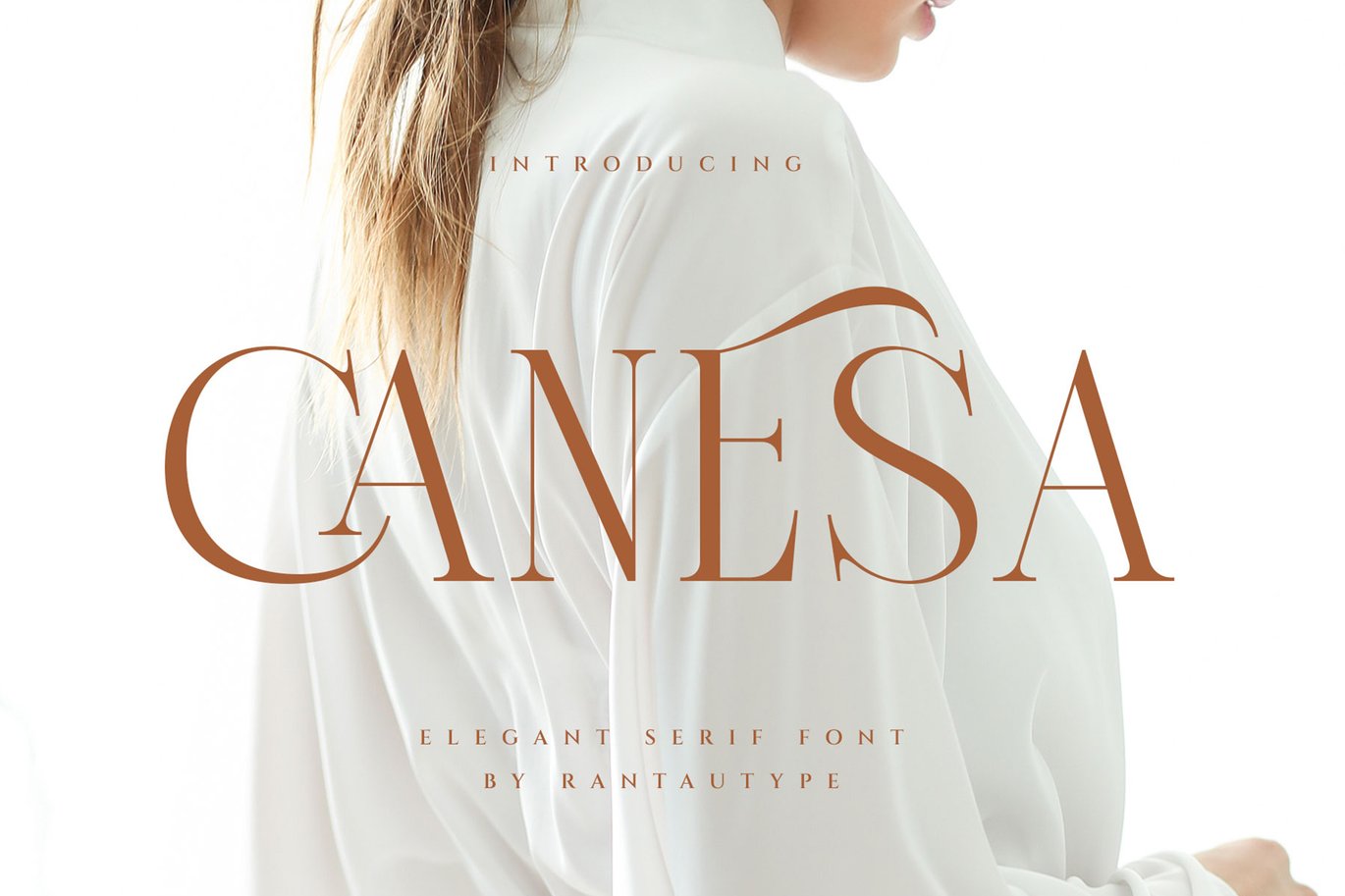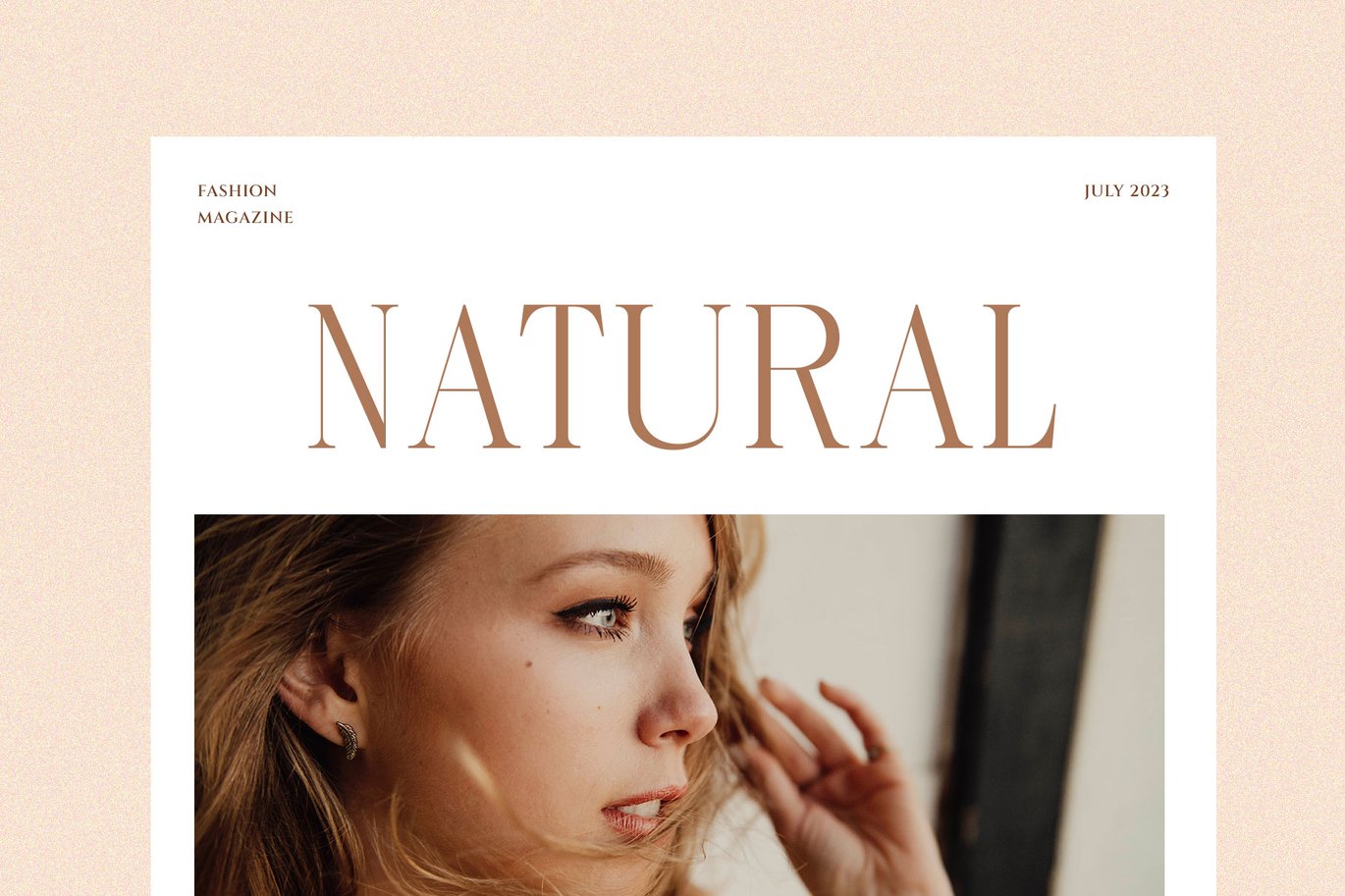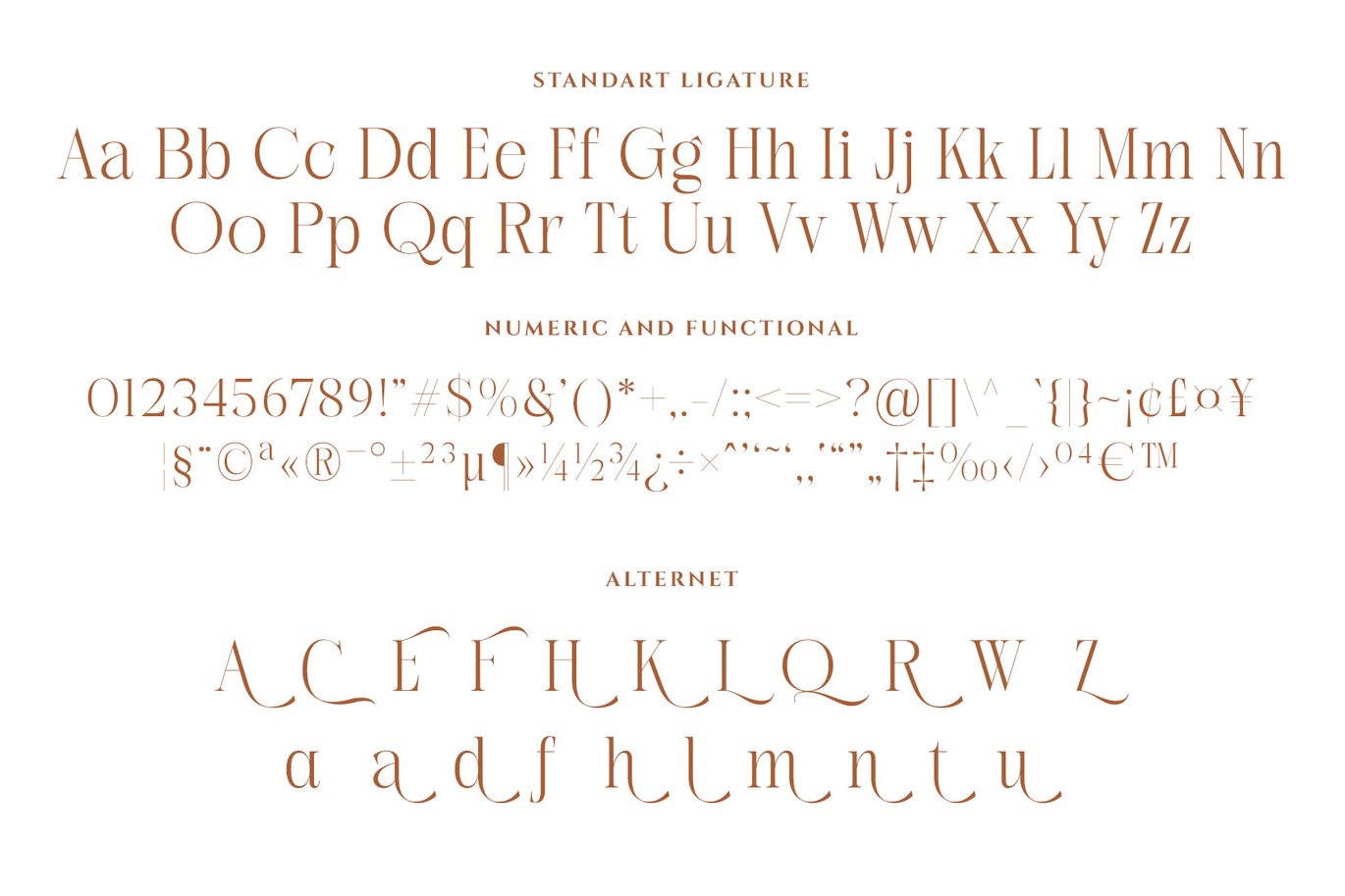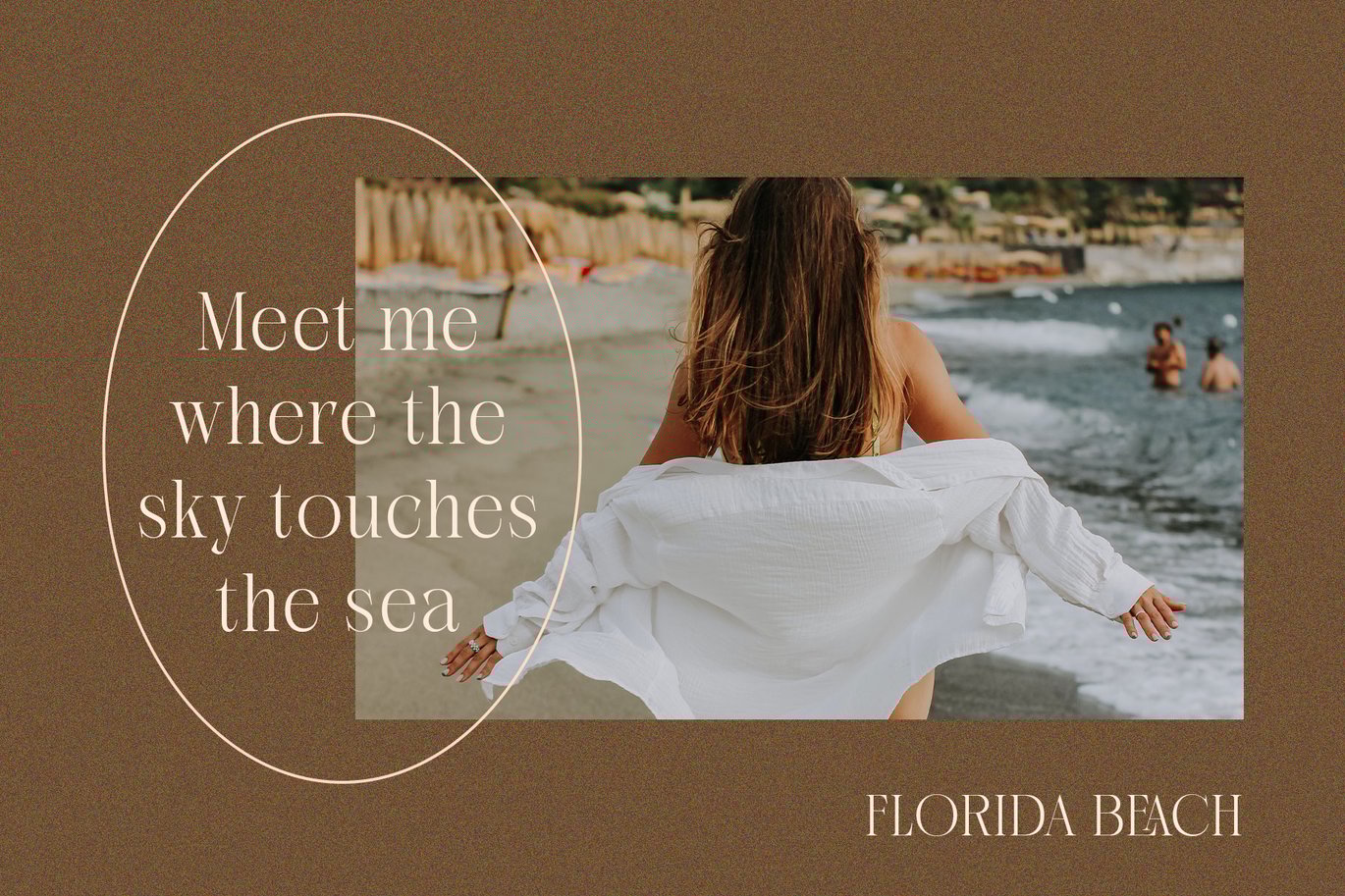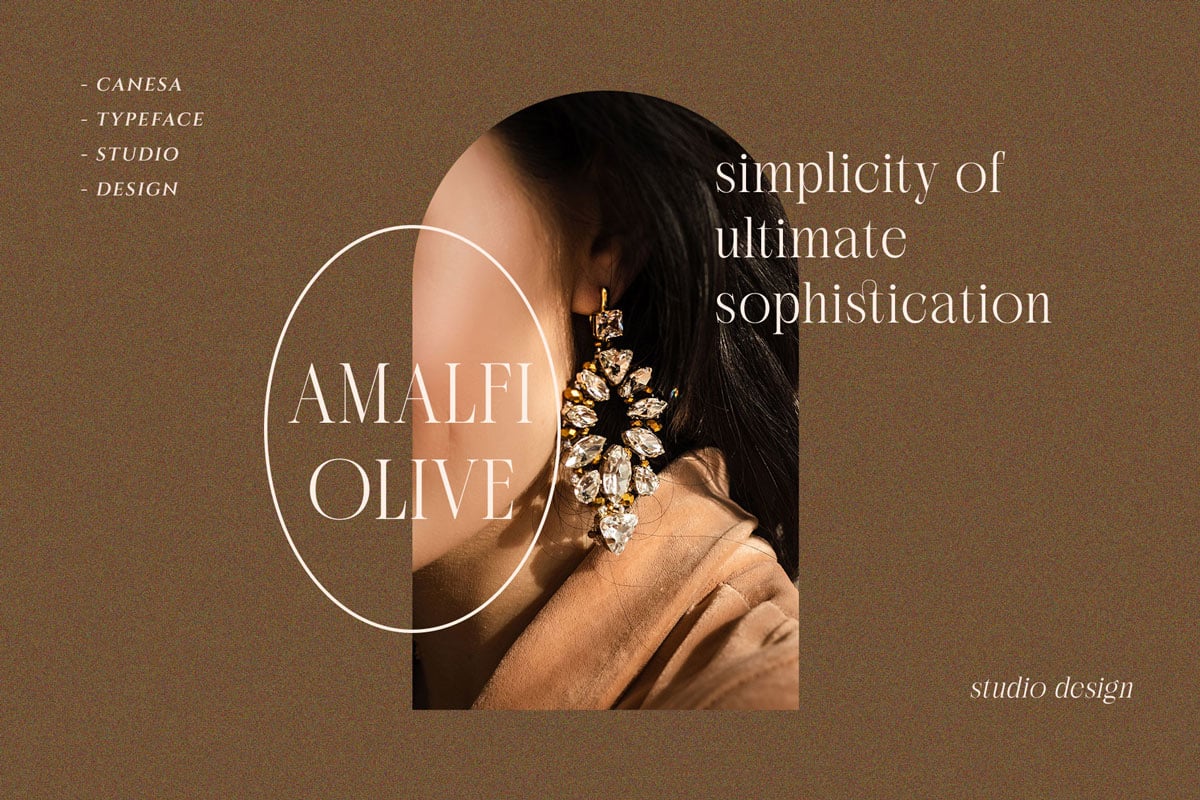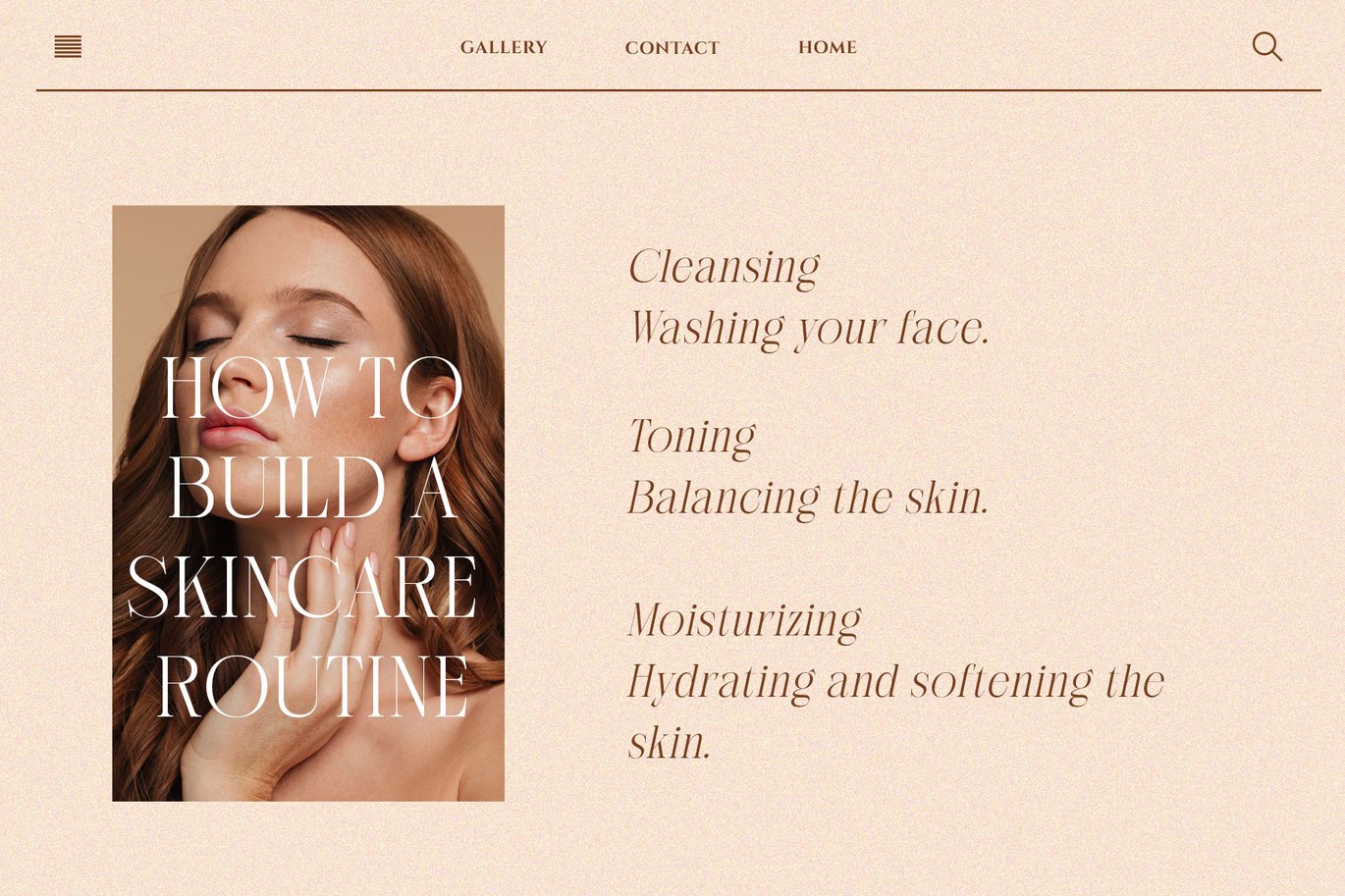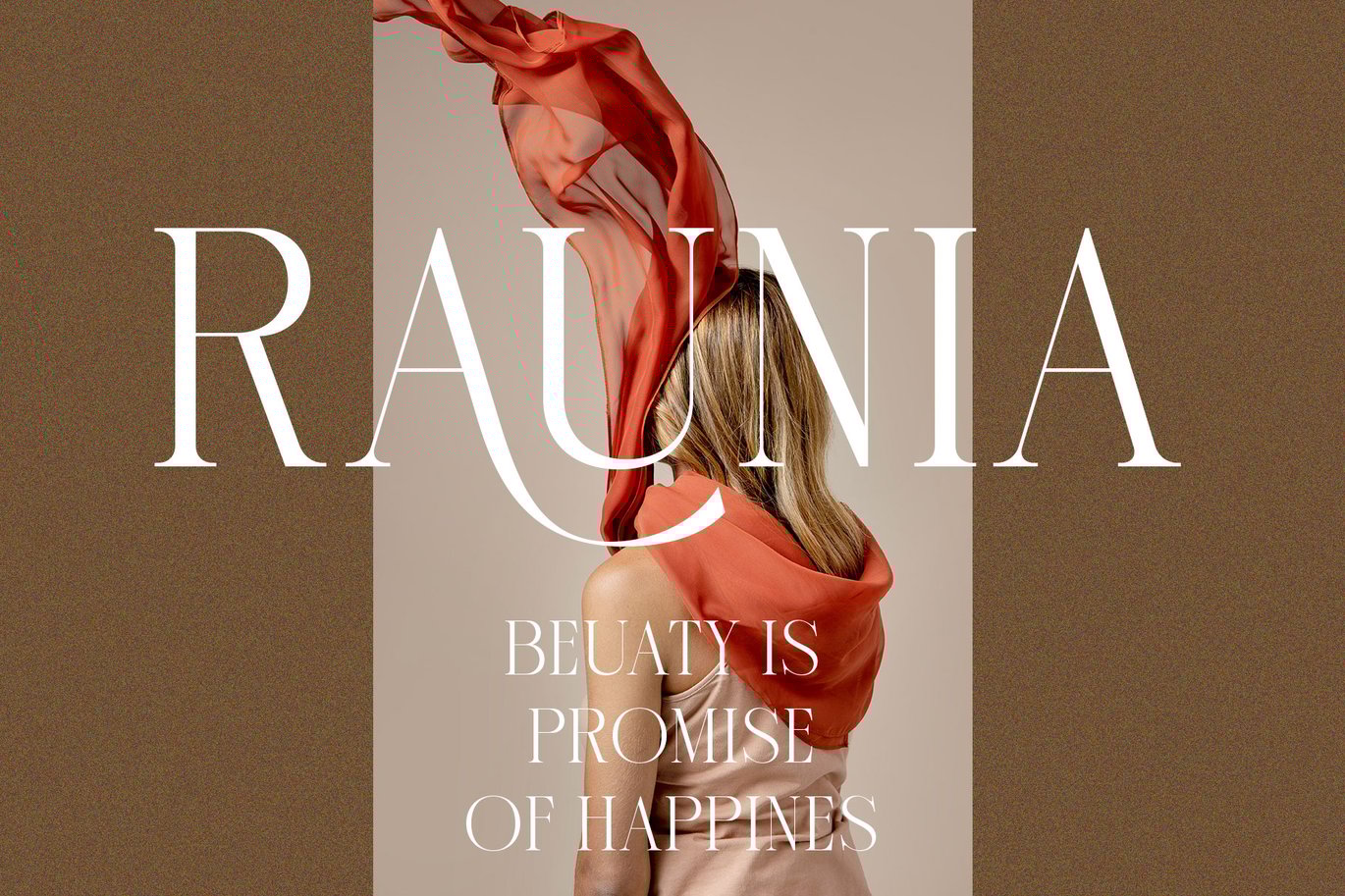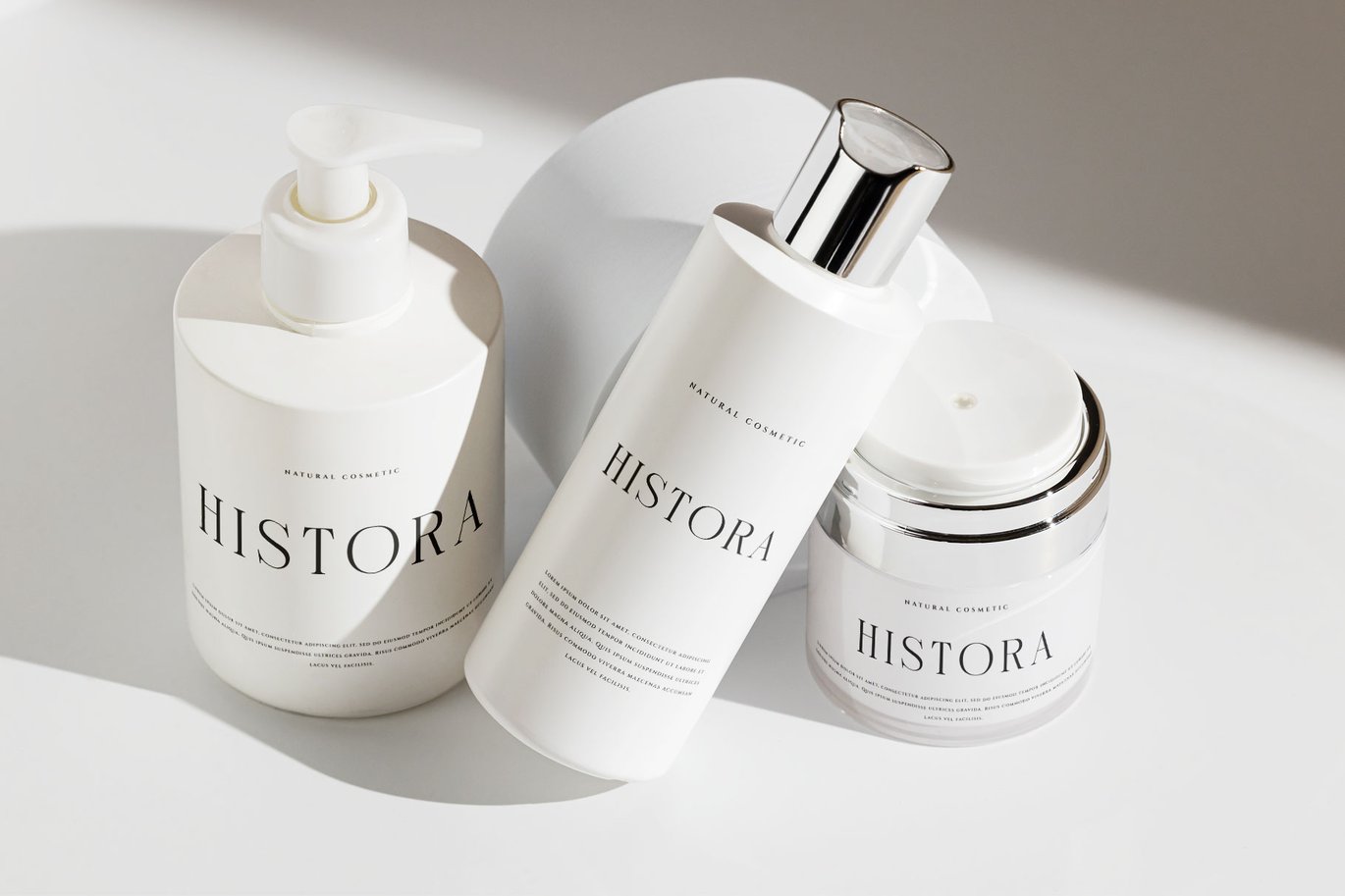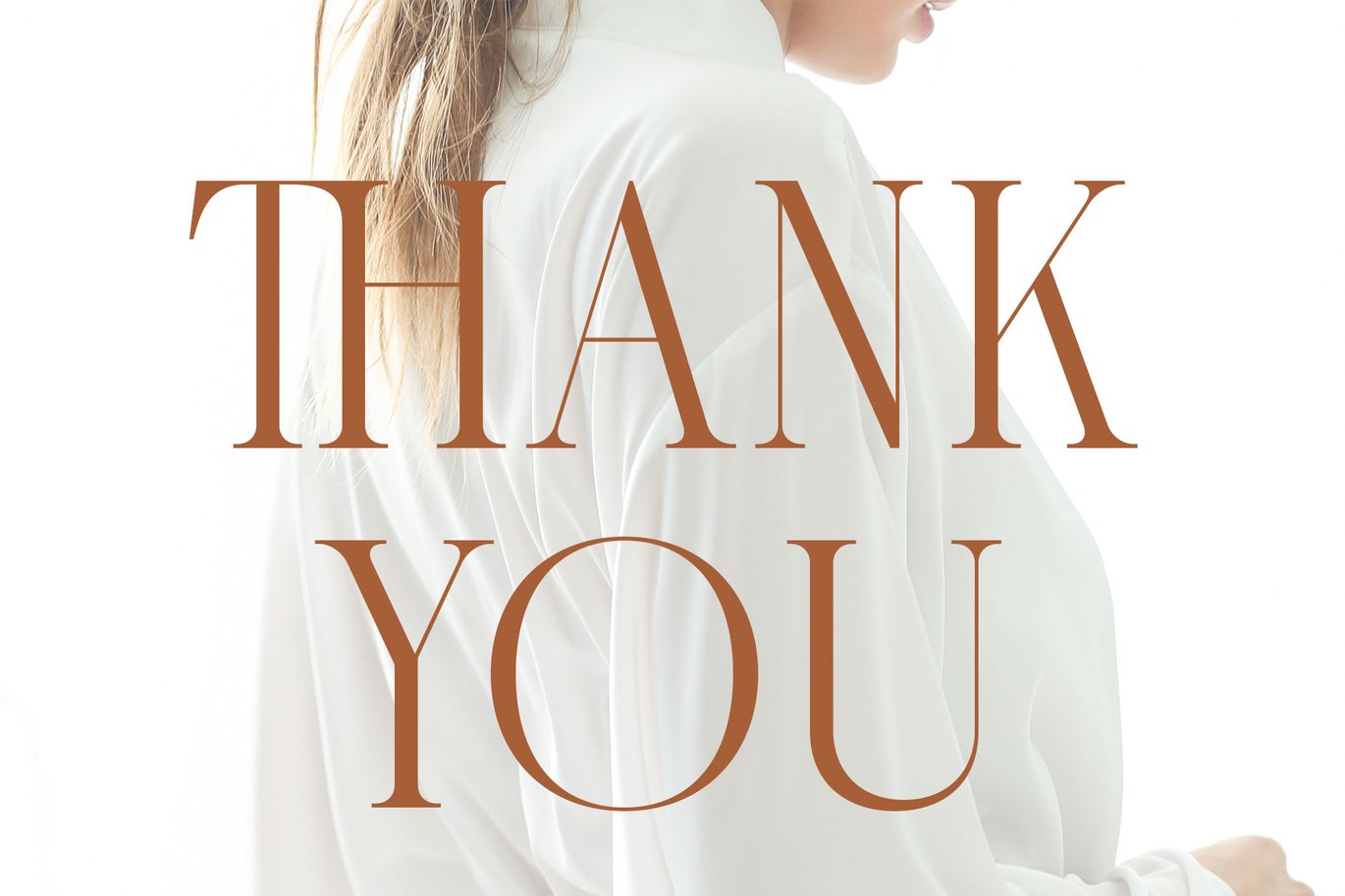
Canesa Elegant Serif Font
Proudly present a elegant ligature serif font “Canesa”, by rantautype.
Canesa – a elegant display serif with Sophisticated shape. We love how tall it look elegant and professional. We keep this font looks fashionable, elegant, luxury, premium, modern, catchy and easy to use.
Perfectly suitable for creating elegant, chic, lifestyle design such as logos, title, cover, branding, display and magazine, and more. Now you have more choice when using Canesa for typography.
- Standar character A-Z and a-z
- Alternate and ligature
- International Multilinggual Support
Afrikaans, Albanian, Asu, Basque, Bemba, Bena, Breton, Catalan, Chiga, Cornish, Danish, Dutch, English, Estonian, Faroese, Filipino, Finnish, French, Friulian, Galician, German, Gusii, Icelandic, Indonesian, Irish, Italian, Kabuverdianu, Kalenjin, Kinyarwanda, Luo, Luxembourgish, Luyia, Machame, Makhuwa-, Meetto, Makonde, Malagasy, Manx, Morisyen, Northv Ndebele, Norwegian, Bokmål, Norwegian, , Nynorsk, Nyankole, Oromo, Portuguese, Quechua, Romansh, Rombo, Rundi, Rwa, Samburu, Sango, Sangu, Scottish, Gaelic, Sena, Shambala, Shona, Soga, Somali, Spanish, Swahili, Swedish, Swiss, German, Taita, Teso, Uzbek (Latin), Volapük, Vunjo, Zulu